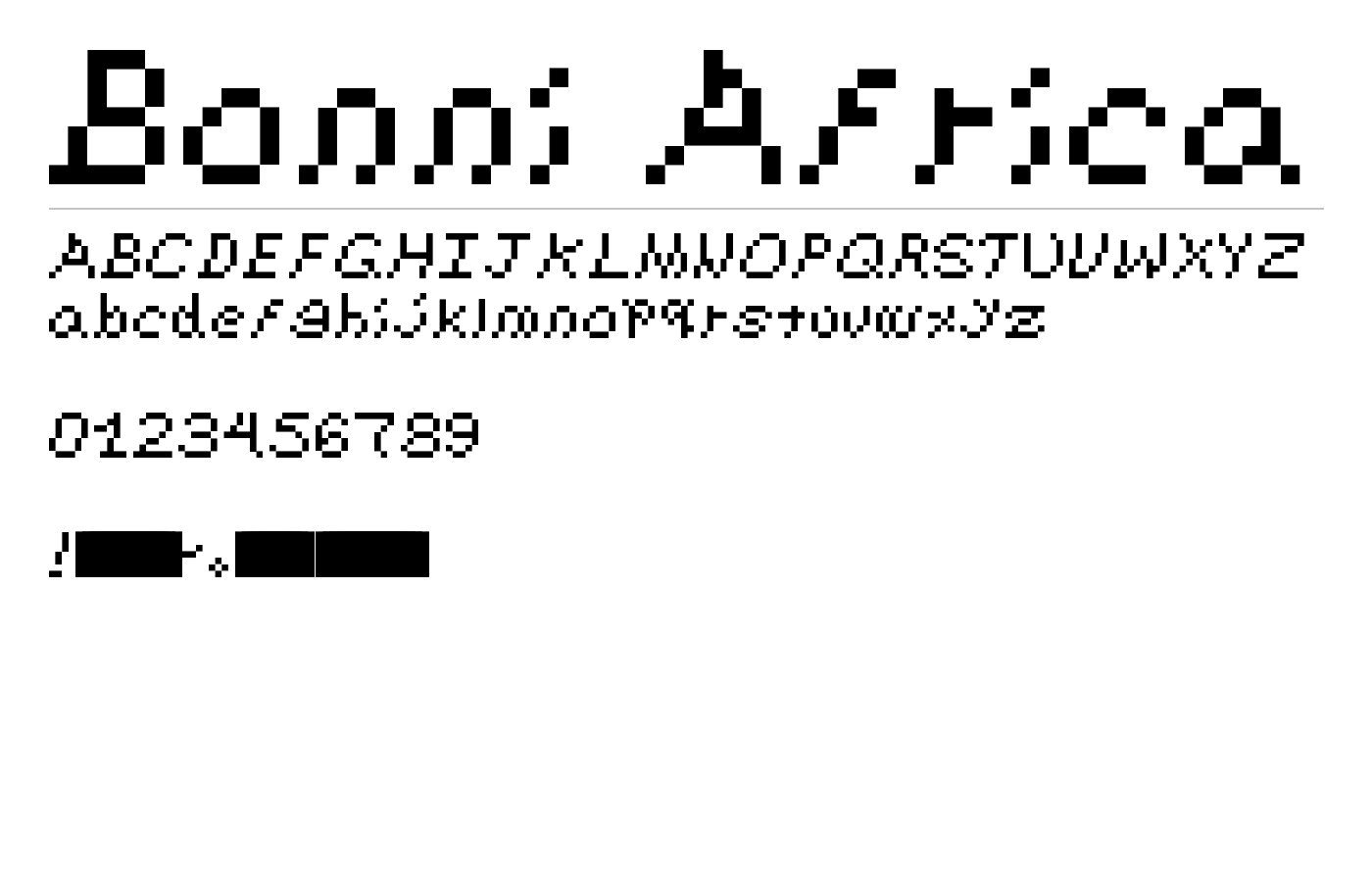
Bonni Africa is a pixelated, monospaced sans serif font that evokes a retro, digital aesthetic reminiscent of early computer screens and 8-bit video games. Its blocky, sharp-edged letterforms with consistent stroke weight and narrow spacing make it ideal for projects seeking a vintage tech or nostalgic gaming vibe. This font works best in digital designs, logos, or headlines where a distinctive, pixel-art style is desired.
Bonni Africa Font
About Bonni Africa Font